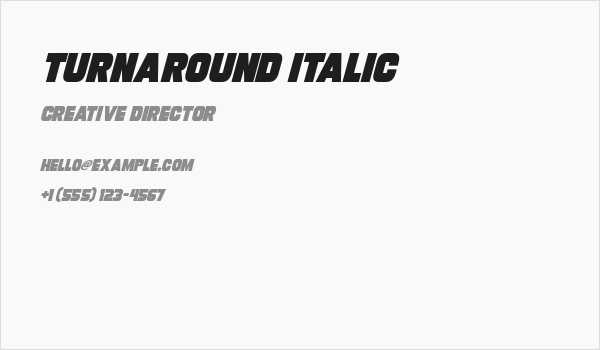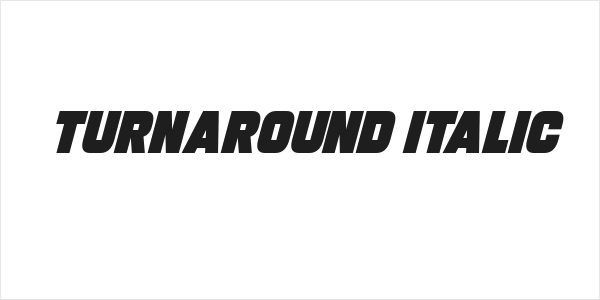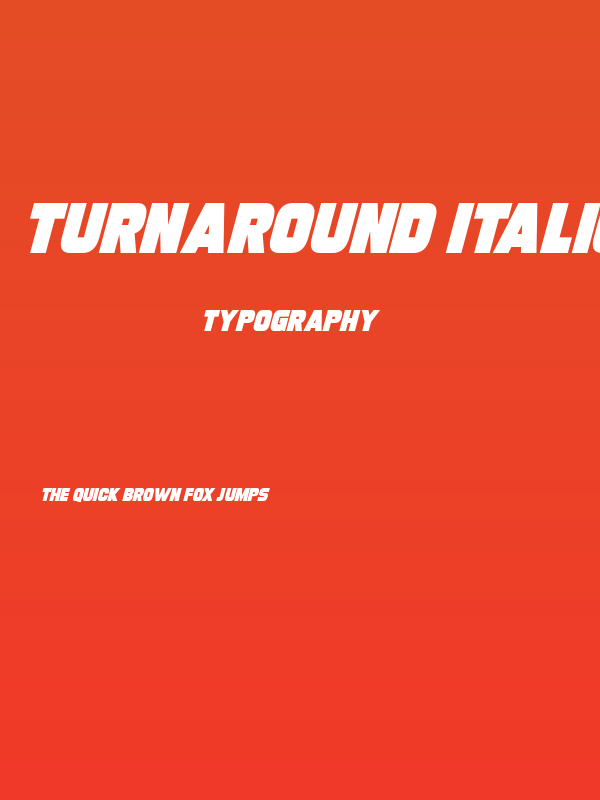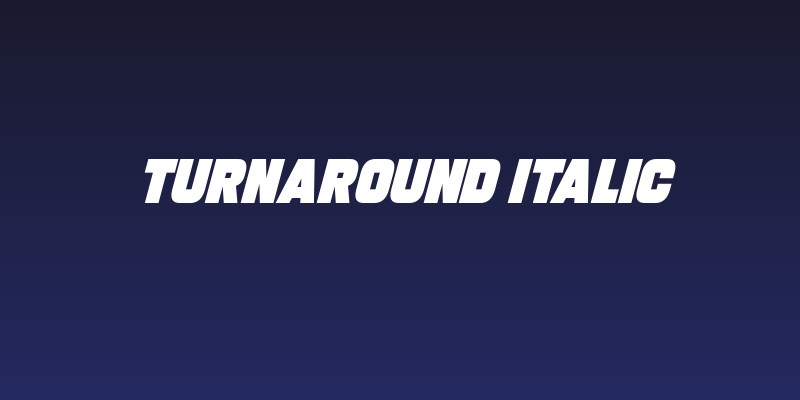
Turnaround Italic Font
Turnaround Italic Description
This font features a bold and dynamic style with a strong italic slant, giving it a sense of motion and energy. The characters are thick and robust, making them highly visible and impactful. The uppercase and lowercase letters maintain a consistent weight, contributing to a cohesive appearance. The numbers and special characters are designed to match the boldness of the alphabet, ensuring uniformity across all elements. The font's design is modern and assertive, suitable for projects that require a strong visual presence.
| Proposed Projects | Ideal for sports branding, action movie posters, dynamic advertisements, and any project needing a bold, energetic typeface. |